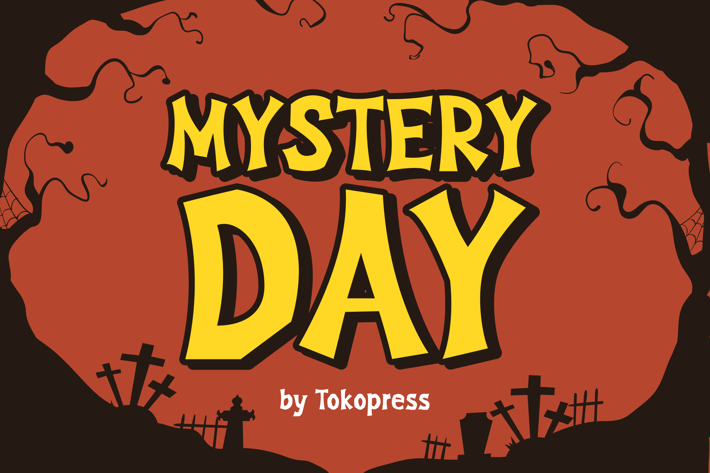
Mystery Day - Spooky Font
Mystery Day - Scary Font
Mystery Day is a Halloween cartoon font with jagged edges, expressive characters, and a bouncy rhythm—ideal for capturing spooky yet playful energy in seasonal designs. With its bold strokes, uneven letter heights, and hand-drawn charm, this font brings a quirky horror vibe perfect for Halloween parties, haunted house flyers, or themed YouTube thumbnails. Its bold and exaggerated forms create instant impact while maintaining legibility.
Whether you're crafting Halloween posters, zombie game titles, trick-or-treat bags, or social media promotions, Mystery Day delivers the eerie tone with a touch of fun. The character styling screams haunted yet kid-approachable, perfect for creators looking to spark curiosity, suspense, or frightful fun. It fits brands that target kids, partygoers, or content creators focused on holiday themes, horror stories, or spooky discount campaigns.
Why Designers Love Mystery Day :
- Bold & Catchy Letterforms: Instantly stands out in crowded layouts and thumbnails
- Spooky Yet Playful Vibe: Great for both eerie and light-hearted Halloween themes
- Hand-Drawn Appeal: Organic imperfections add charm and personality
- Versatile Usage: From posters and merchandise to video covers and event flyers
- Sharp Letter Shapes: Emphasizes horror style while maintaining legibility